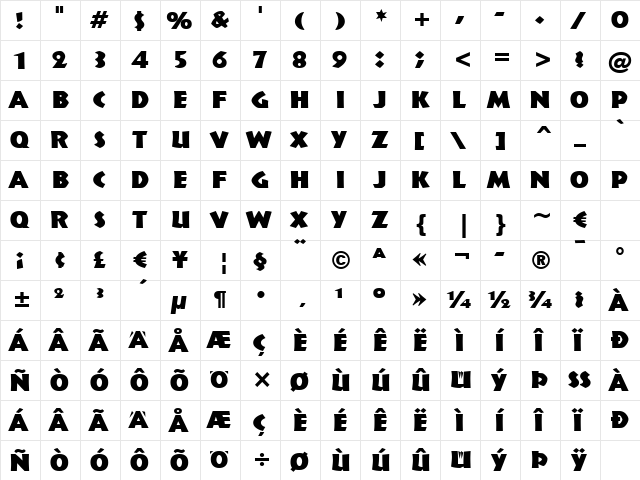
Informal011 Blk BT Black Font Preview
Informal011 Blk BT Black
Design Context for Informal011 Blk BT Typeface
Informal011 Blk BT offers clean, dependable letterforms without strong stylistic allegiance, making it a practical choice for designers who need flexibility.